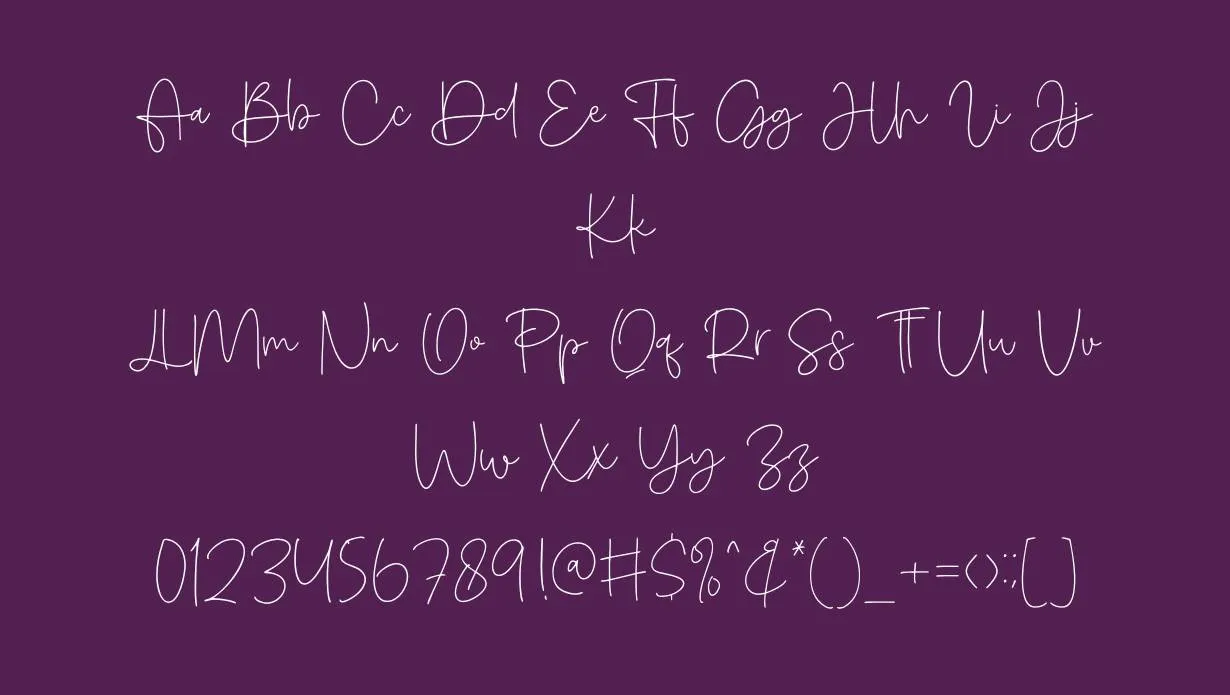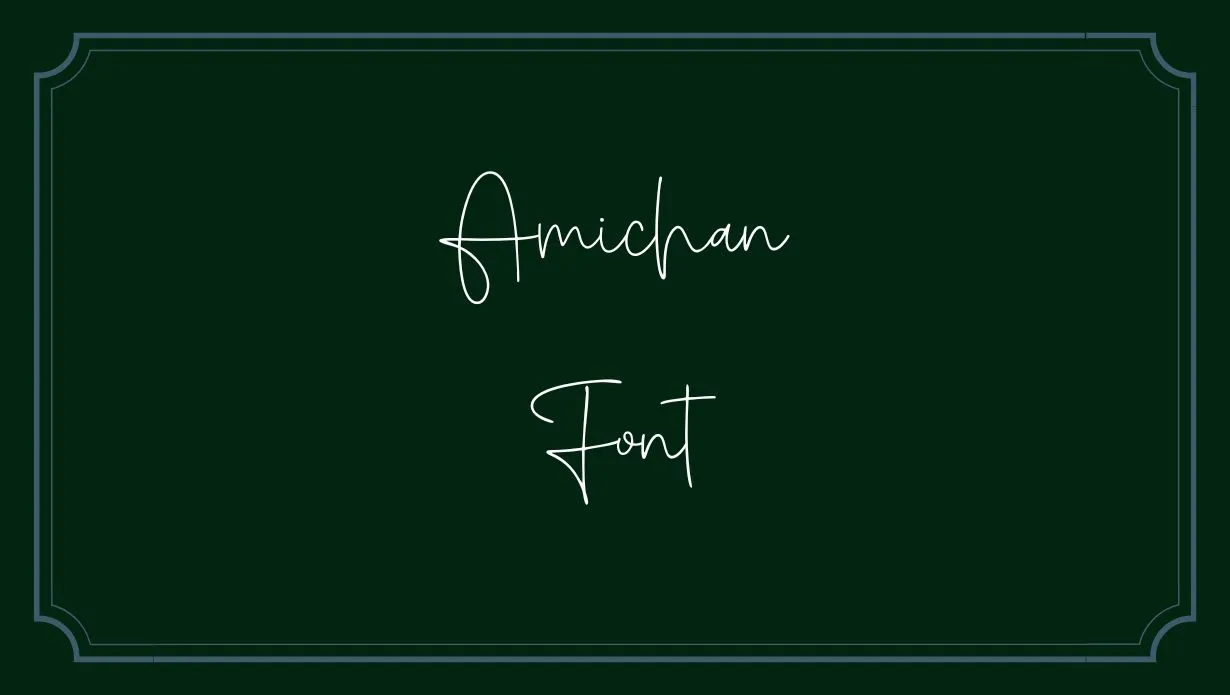
Salamahtype created this amazing font named Amichan Font. There is no doubt that this font is very popular among designers, people use the Amichan Font style due to its soft and unique look.
Many alternatives can be paired with this font. The font weights have great texture and a clear design.
This style is inspired by classical writings and this unique typeface can be used in CSS styling. It may be used in advertising offices and other digital workplaces for daily tasks. This is the greatest style for producing original designs for the project. It is a nice script text style.
It’s a good modern font family that looks clean and neat. The design has excellent features and supports many languages.
You’ll be able to make your headlines stand out by adding eye-catching glyphs. In this stunning typeface, you can use both lowercase and uppercase letters.
Usage of Amichan Font
This amazing typeface can be used to create unique invitation cards, logos, and invoices with an attractive touch.
This is also a great style for newspaper design, posters, and other similar projects. Additionally, with this style, you can create pamphlet designs, billboard designs, newspaper templates, video game graphics, symbols, card designs, and much more.
As a designer, you can use this typeface to design weekly reports, magazine covers, invoices, and account statements for your business.
The font comprises interesting common glyphs which makes it idealized for display purposes. This typeface is a great choice for those who are searching for a classic textual style.
You can use this typeface to create commercials, presentations, packaging, posters, website templates, artwork, business cards, brochure layouts, T-shirt designs, logo designs, social media posts, and much more.
The style is best suited to design projects in Canva. With this font, you can create a nice professional logo, heading, or branding. With sacramento font is a nice and creative pairing style to make interesting designs.
Amichan Font
StyleScript
DesignerSalamahtype
Which Fonts are similar to Amichan Font?
There are many fonts that are similar to the Amichan Font but here we share some of these such as Tilda Petite Font.
Who designed Amichan Font?
The style is designed by Salamahtype this is an amazing script design.
Is Amichan a good font?
Yes, this is a damn good modern font family that looks clean and neat. The typeface has excellent features that can produce unique designs.
Where can I use Amichan Font?
This style can be used to create unique newspaper headings, posters, banners, daily task reports, etc.